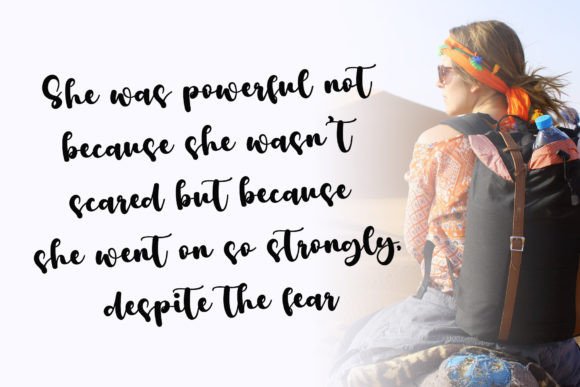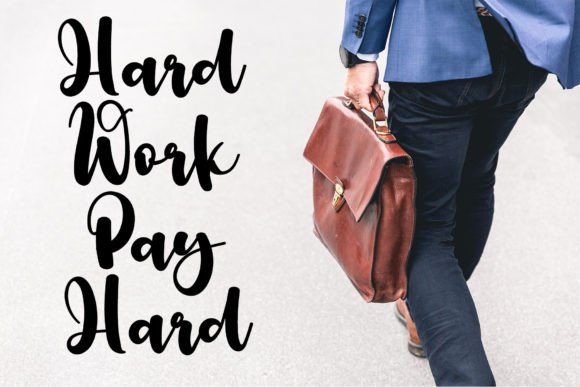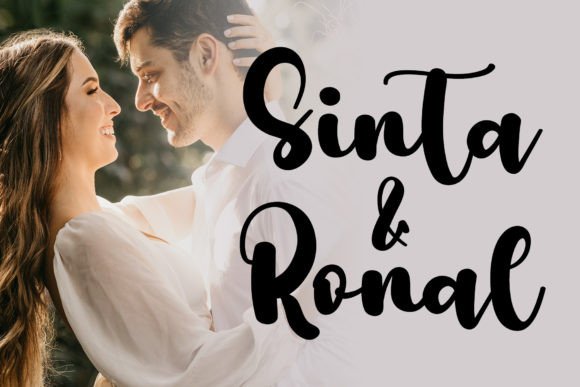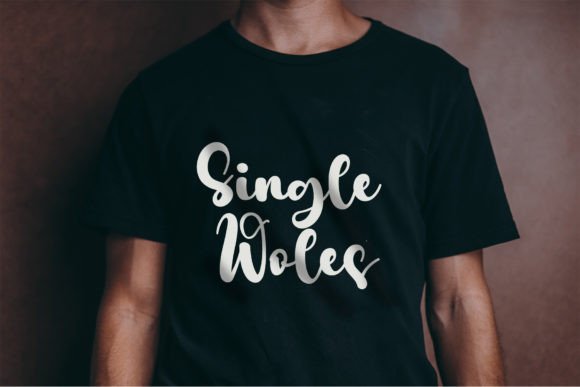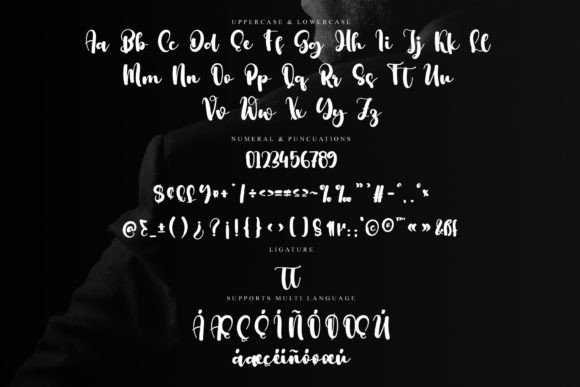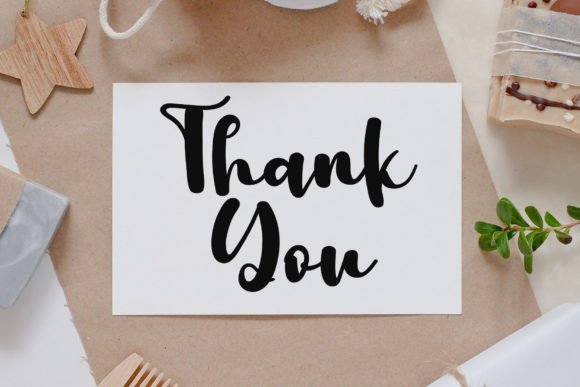
Introduction to Kayla Romantic Font
As a designer, there’s nothing quite like the thrill of bringing a creative project to life. Whether it’s a wedding invitation, a birthday card, or a special gift, the right font can make all the difference. And that’s where the Kayla Romantic Font comes in – a charming, handwritten font that adds a touch of whimsy and romance to any design.
Imagine you’re sitting at your desk, surrounded by papers, pens, and design software. You’re working on a special project, and you need a font that’s going to make it truly special. That’s where the Kayla Romantic Font shines – with its soft, characterful touch and PUA encoded glyphs, it’s the perfect design resource for any creative project.
Key Features of Kayla Romantic Font
- Unique, elegant script font designed for creative projects and personal use.
- Perfect for designers looking for a romantic and feminine design resource.
- Unique characteristics: swashes, flourishes, and connecting strokes for a handwritten feel.
Honest Review: Kayla Romantic Font
As a designer, I’m always on the lookout for high-quality design resources that can elevate my creative projects. I recently stumbled upon the Kayla Romantic Font, and I’m excited to share my honest review.
Here are the things that work well: ✨ The font is beautifully designed with a romantic and whimsical feel that’s perfect for projects that require a touch of elegance. ✨ The high-quality design ensures that the font looks great on various devices and backgrounds. ✨ The transparent background option is a huge plus, allowing me to easily integrate the font into my designs.
Here are the limitations I’ve encountered: ⚠️ The font doesn’t come in as many weights and styles as I would like, which can limit its versatility. ⚠️ Some users may find the font too ornate or over-the-top, which can be a drawback for certain design projects.
- Beautifully designed with a romantic and whimsical feel
- High-quality design ensures great display on various devices and backgrounds
Tips for Getting the Most Out of Kayla Romantic Font
To get the most out of the Kayla Romantic Font, use it in creative projects that require a touch of elegance and sophistication. Experiment with different font sizes, colors, and combinations to create a unique design.
The Kayla Romantic Font is ideal for wedding invitations, greeting cards, and other romantic-themed projects. It’s also suitable for branding and marketing materials that require a touch of elegance and sophistication.